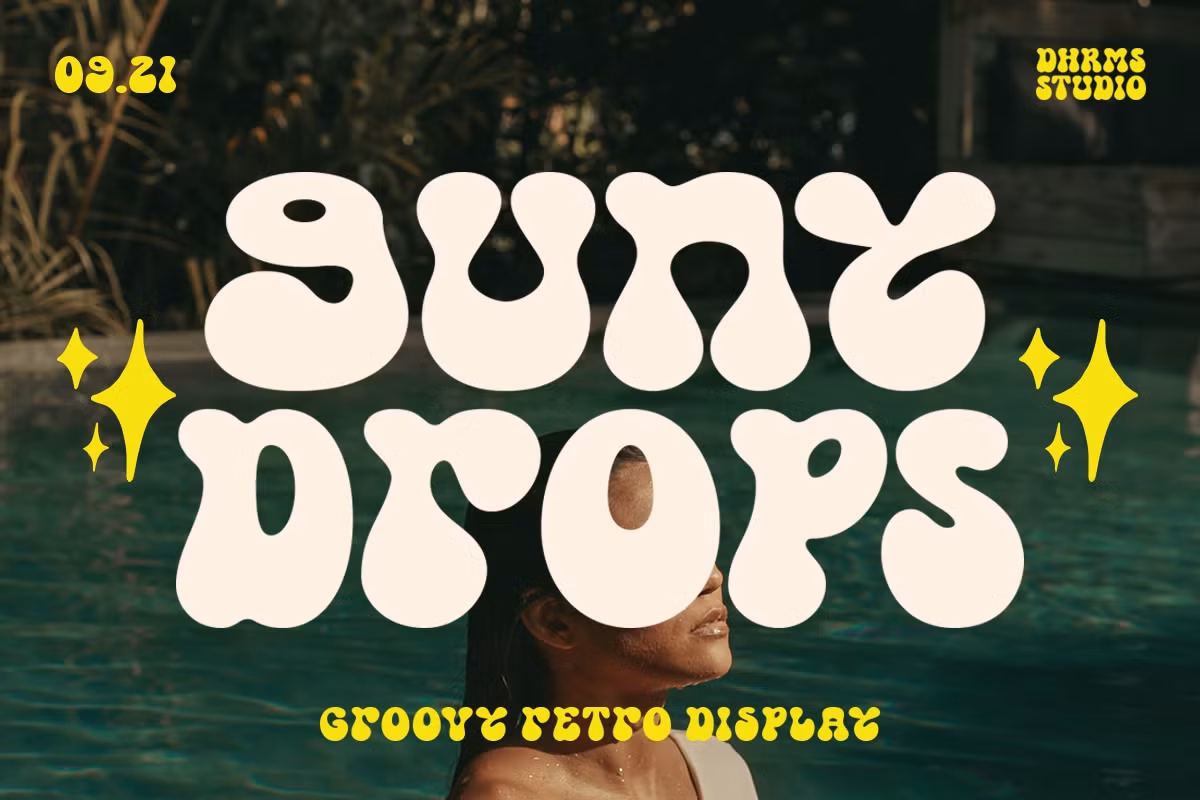
Gunydrops - Groovy Retro & Extras Free Download
Gunydrops - Groovy Retro & Extras Free Download is a bold and stylish typeface inspired by retro aesthetics. With its playful, rounded letters and unique design, Gunydrops is perfect for projects that need a fun, nostalgic touch. Ideal for posters, logos, packaging, and more, this font captures the essence of the groovy '70s while still feeling modern and fresh. The added extras make it even more versatile for any creative endeavor.